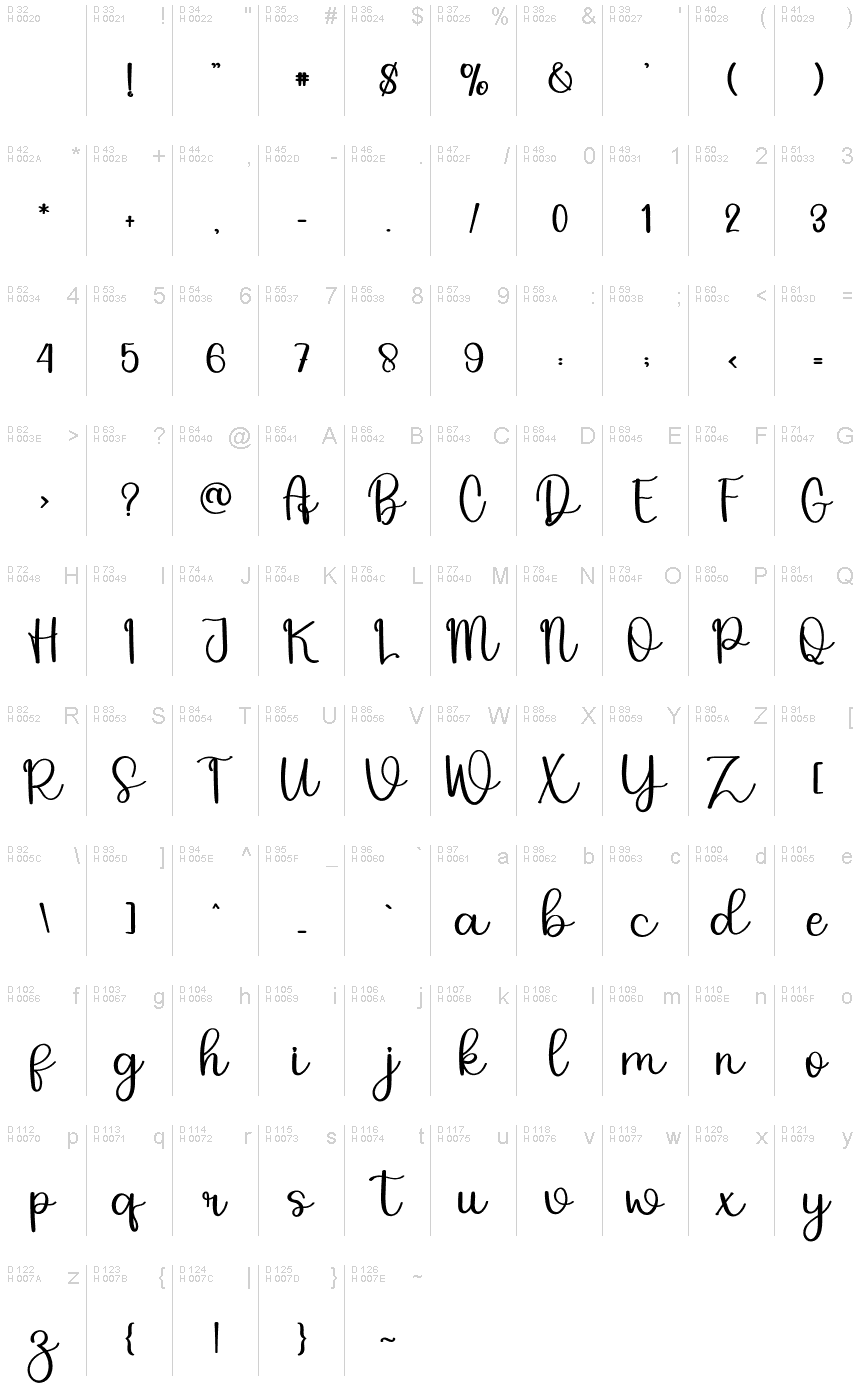
Creative Vintage
Introducing Creative Vintage, a light calligraphy font designed by FreshtypeINK. It's perfect for adding a touch of vintage elegance to any project, from logos to posters to invitations.